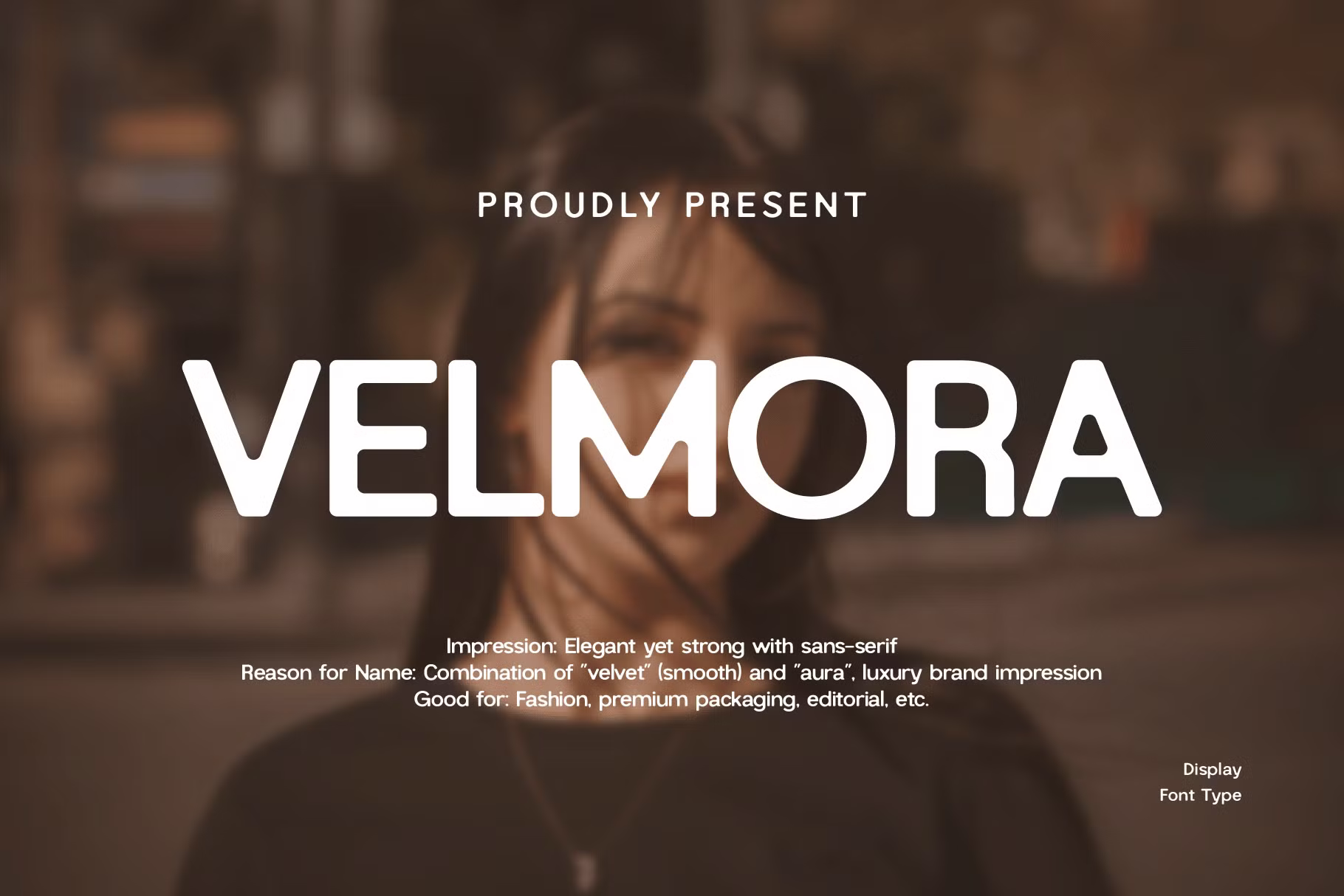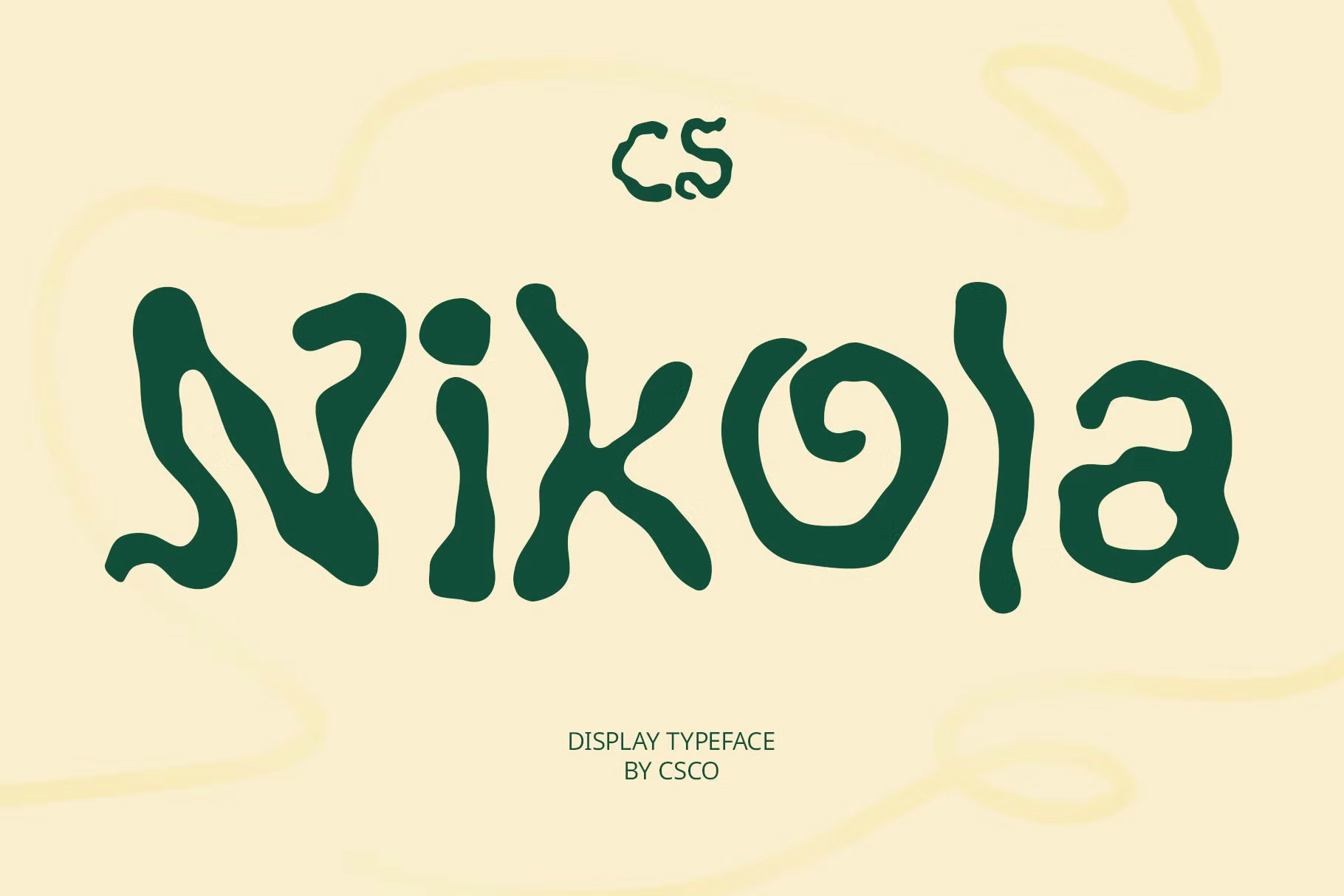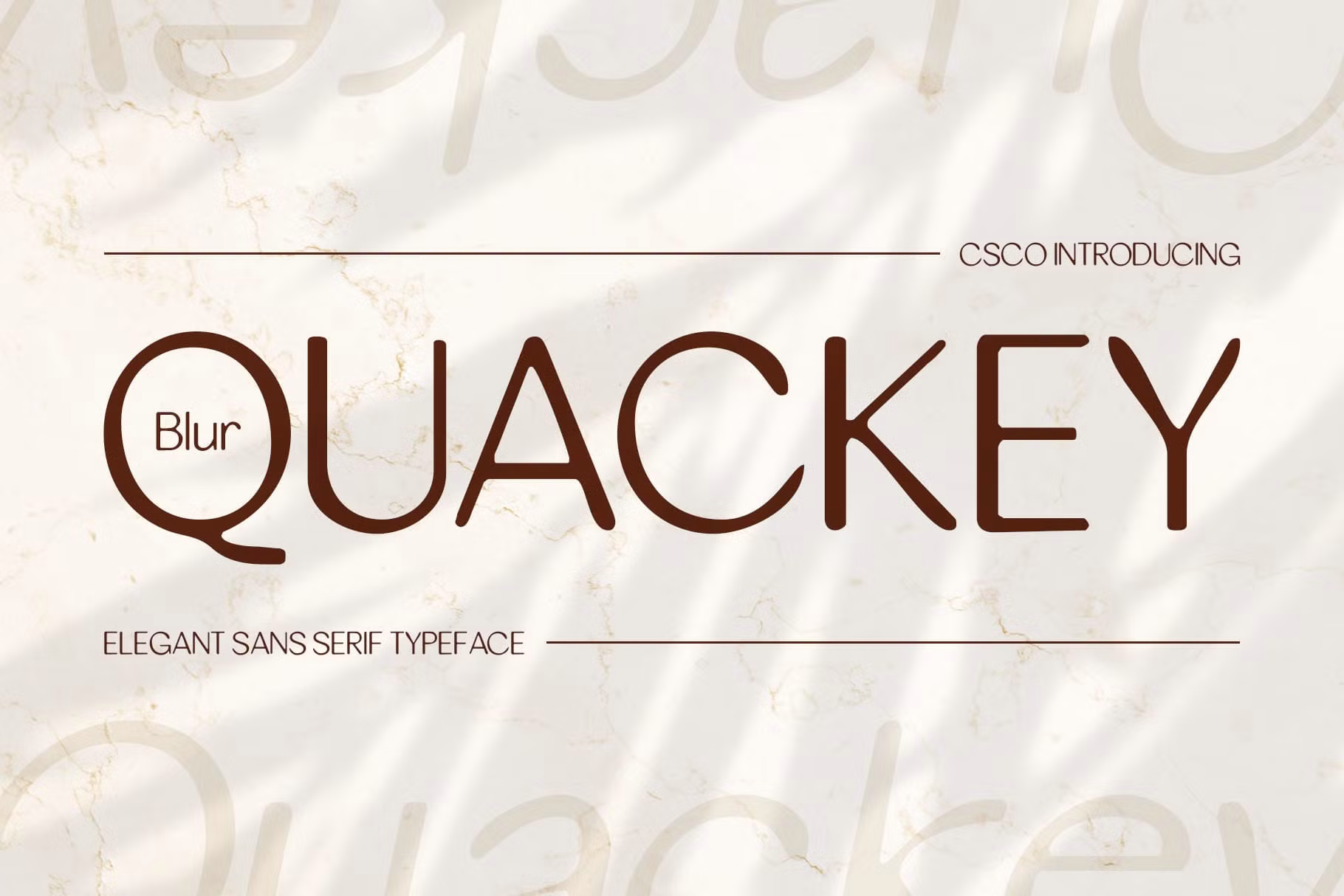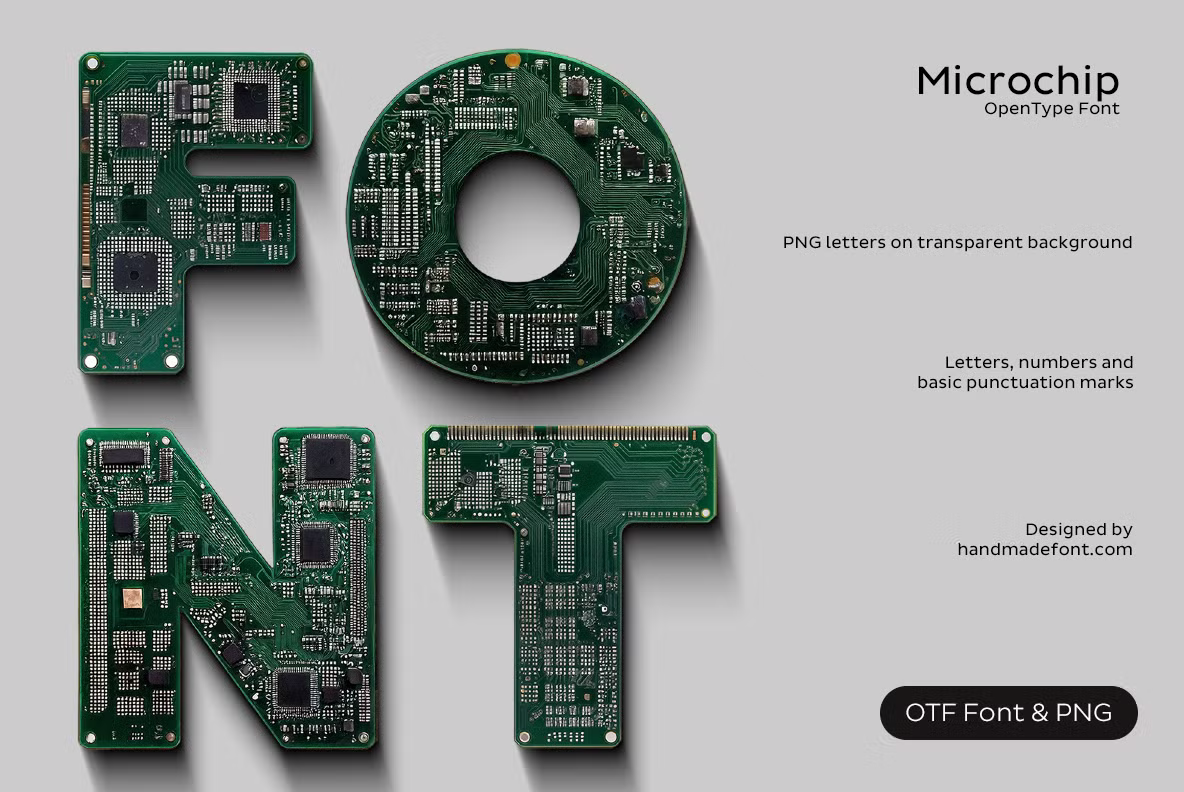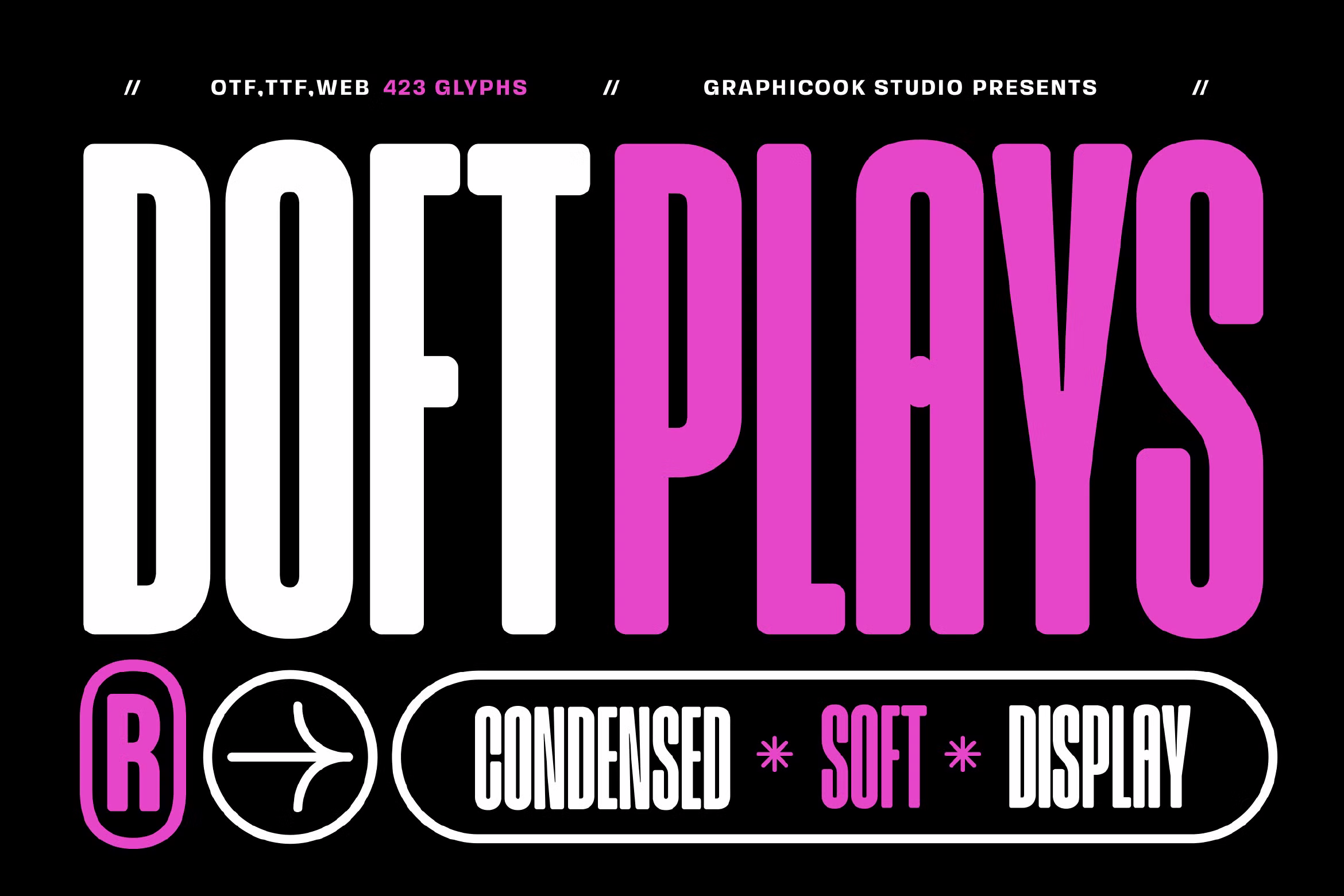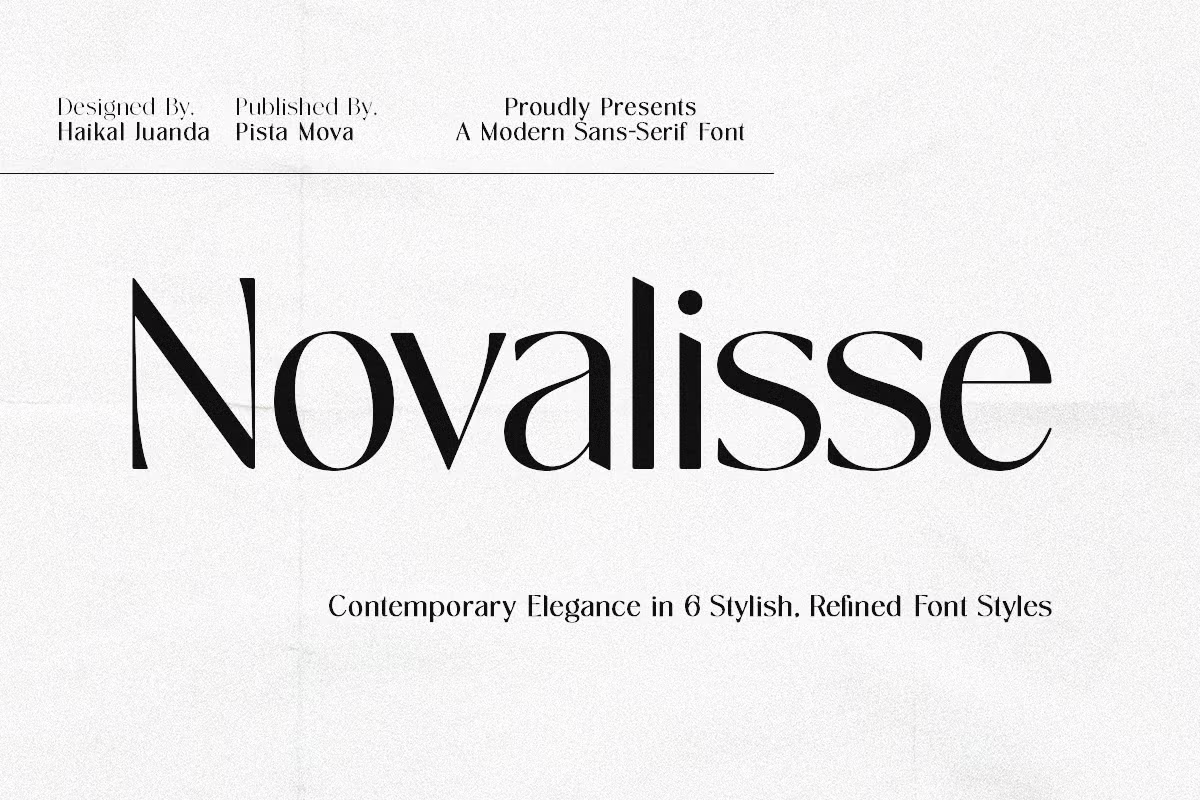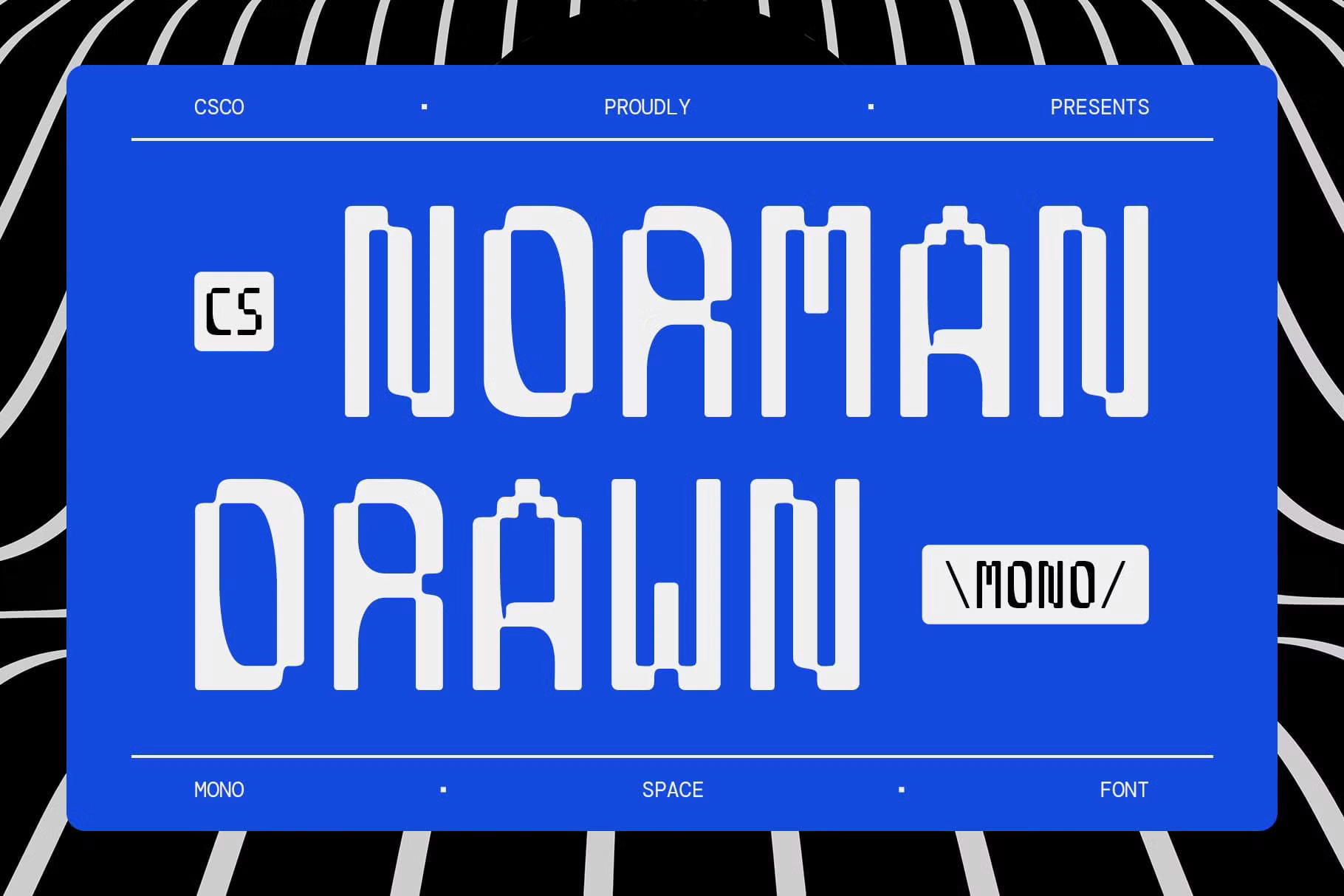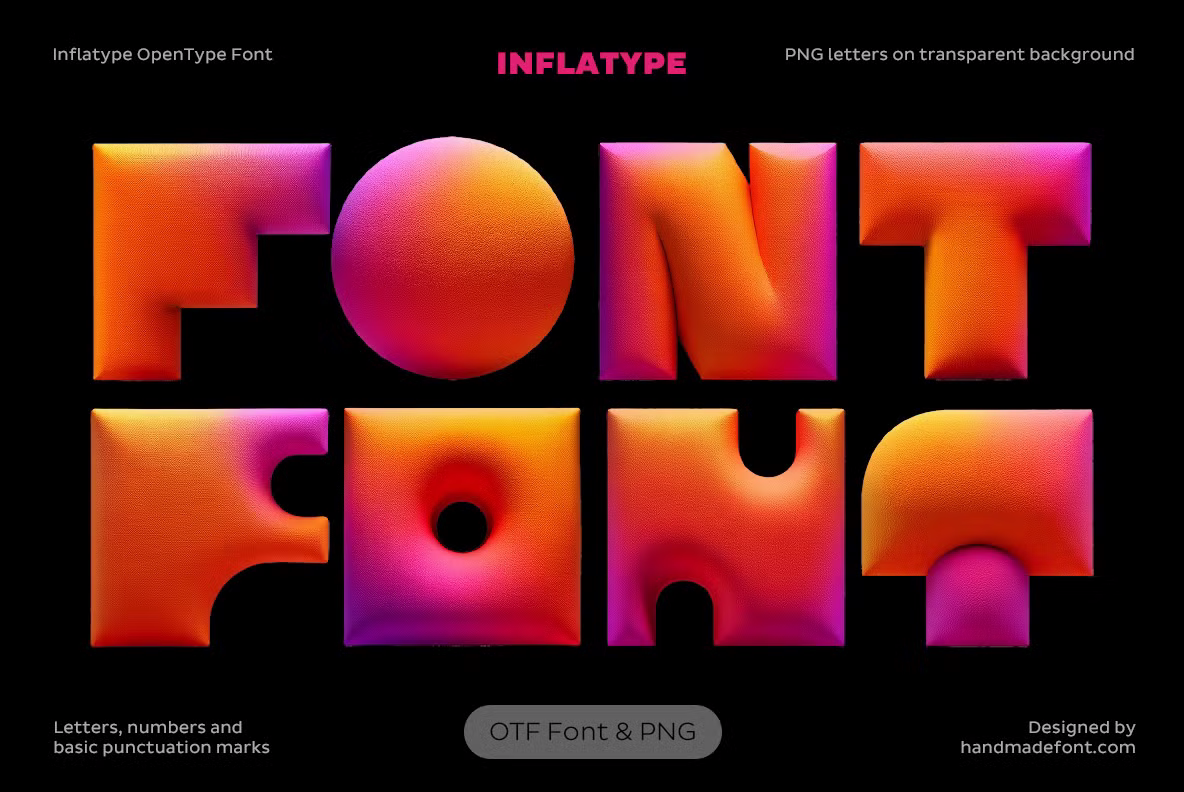
The world of sans serif fonts offers a diverse range of options that can elevate your designs to new heights. In this collection, we explore a variety of unique fonts, each with its own character and style. From the futuristic Ireon Cyberpunk to the friendly Velmora, these fonts are perfect for modern branding and creative projects. CS Nikola adds a funky, handcrafted touch, while Quackey Blur introduces an artistic flair with its soft blur effect. The technological Microchip font brings a high-tech feel, while Doftplays delivers playful charm. Experience the elegance of Novalisse and the vintage inspiration of Harbinger. Finally, CS Norman Mono Drawn captures retro aesthetics, and Inflatype brings a whimsical, balloon-like quality to your designs. These fonts enhance your creative expression and are perfect for various applications, from branding to editorial design.
Ireon Cyberpunk - Modern Logo Font
Ireon Cyberpunk is a modern, futuristic font that fuses sharp geometric lines with smooth curves, embodying a high-tech aesthetic. Ideal for sci-fi branding, tech interfaces, and gaming titles, this font comes in both Regular and Italic styles, enhancing visual appeal. Its bold, angular design evokes images of neon-lit urban landscapes and digital realms, making it perfect for projects demanding a cutting-edge, dystopian vibe. Whether you’re crafting a logo or designing an interface, Ireon Cyberpunk stands out with its striking and modern look, ensuring your message is delivered with powerful impact.
Velmora Sans Serif Font
Velmora is a delightful and contemporary sans serif font that radiates warmth and friendliness. With its clean lines and approachable design, it’s perfect for a wide array of creative projects, from branding to digital content. This font includes all capital letters, numbers, and basic punctuation, making it versatile for various applications. Velmora’s casual yet professional aesthetic allows it to shine in both print and web environments. Whether you're crafting marketing materials, designing invitations, or creating engaging social media graphics, this font brings a touch of personality and charm to your work, making it an ideal choice for designers seeking a modern and inviting typeface.
CS Nikola – Etchy Font
CS Nikola is a captivating display font that embodies a rough, hand-drawn aesthetic. With its jagged, irregular lines, this font exudes a raw, spontaneous energy, perfect for designs that aim to be bold and expressive. The unique freeform shapes create visual rhythm, making it an excellent choice for music posters, album covers, and youth-centric illustrations. This font thrives in creative spaces where individuality and artistic intent reign. Whether you’re designing DIY zines or informal branding, CS Nikola adds a punch of personality to your work. Its unpolished charm makes it a standout choice for any project that seeks to break the mold and engage audiences with its artistic flair.
Quackey Blur
Quackey Blur is an innovative sans-serif font that combines sleek, modern design with a unique blur effect. This font features slim and stylish letterforms that emphasize clarity and balance, making it perfect for contemporary branding and high-end editorial designs. The soft blur overlay introduces an artistic touch, adding depth and texture to each character. Ideal for fashion campaigns, luxury branding, and creative visual projects, Quackey Blur helps communicate elegance and modernity. Its minimalist shapes and well-balanced proportions reflect a sophisticated aesthetic, making this font a great choice for designers looking to create striking, polished work.
Microchip Font
Microchip Font is a cutting-edge, tech-inspired typeface that emulates the intricate structures of electronic circuit boards. Each character is thoughtfully designed, integrating microchip patterns and PCB components, creating a visually striking effect. Its deep green base color and metallic accents give it an authentic hardware feel, making it ideal for digital design, cyber-themed branding, or high-tech visuals. This font serves as a bridge between typography and technology, making a bold impression in projects that require a futuristic aesthetic. Perfect for titles, posters, UI/UX mockups, and branding in the electronics and robotics sectors, Microchip Font ensures your designs resonate with a modern, innovative vibe.
Doftplays
Doftplays is a playful, condensed font characterized by its rounded corners and bold presence. This modern typeface is designed to grab attention, making it an excellent choice for headlines, logotypes, and vibrant marketing materials. Its unique styling adds a lighthearted touch, perfect for magazines, quotes, games, and cover designs. Doftplays is a versatile solution for creative projects that demand a bold visual statement while maintaining a sense of fun and approachability. Whether you're designing packaging, flyers, or any other eye-catching content, this font ensures your designs stand out in a competitive landscape.
Novalisse
Novalisse is an elegant sans serif typeface that marries classic charm with modern sensibility. With high-contrast strokes and graceful curves, it captivates the eye and enhances any design. This versatile font is suitable for sophisticated editorial layouts, striking brand identities, and engaging websites. Each character is meticulously crafted to convey strength and refinement, while the true italics add dynamic movement. With elegant ligatures and multilingual support, Novalisse is perfect for editorial design, branding, web design, packaging, and stationery. Experience the seamless blend of elegance and functionality that Novalisse brings to your creative projects.
Harbinger - Vintage Typeface & Paper
Harbinger is inspired by vintage ephemera, bringing a nostalgic touch to your designs. This versatile font family includes four styles: Regular, Hand, Typewriter, and Expanded, allowing for a range of applications. Each style reflects a unique character, making it perfect for creating authentic and engaging designs. Alongside the typeface, you receive 18 real vintage paper textures with transparent backgrounds, enabling you to craft your own vintage-themed projects effortlessly. Ideal for invitations, posters, and branding, Harbinger helps you capture the charm of yesteryears while adding a contemporary flair to your work.
CS Norman Mono Drawn
CS Norman Mono Drawn is a unique display sans serif font that merges retro pixel aesthetics with modern usability. Designed with geometric precision, this font captures the essence of vintage computing and gaming, making it perfect for projects that celebrate nostalgia. Its hand-drawn effect adds a personal touch, bridging the gap between mechanical uniformity and artistic flair. Ideal for digital art, gaming visuals, and experimental designs, CS Norman Mono Drawn enhances your work with an expressive character that stands out. This versatile font works well in various creative contexts, making it a go-to choice for designers looking to infuse their projects with retro charm and modern functionality.